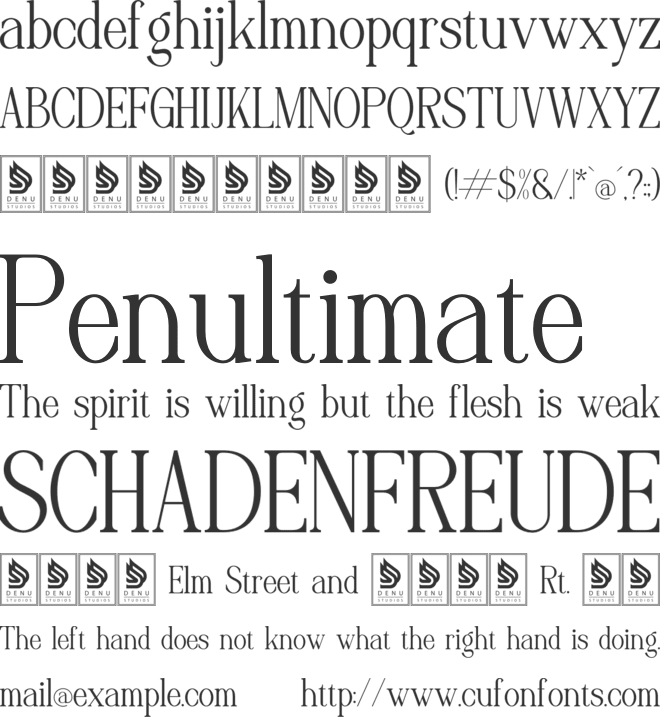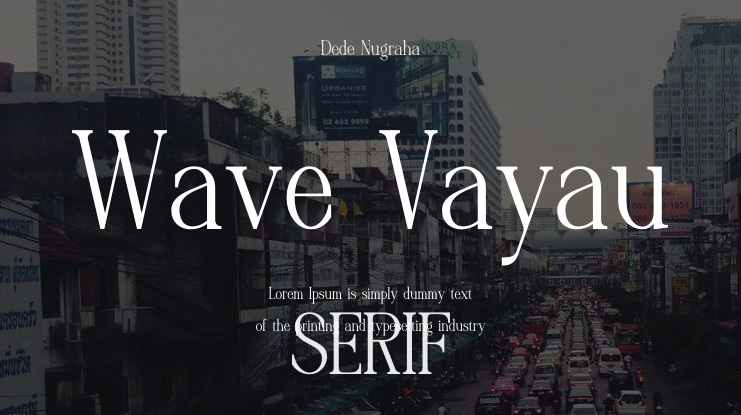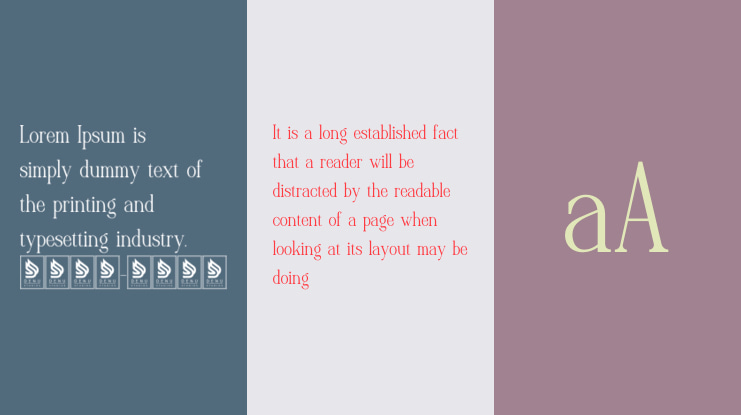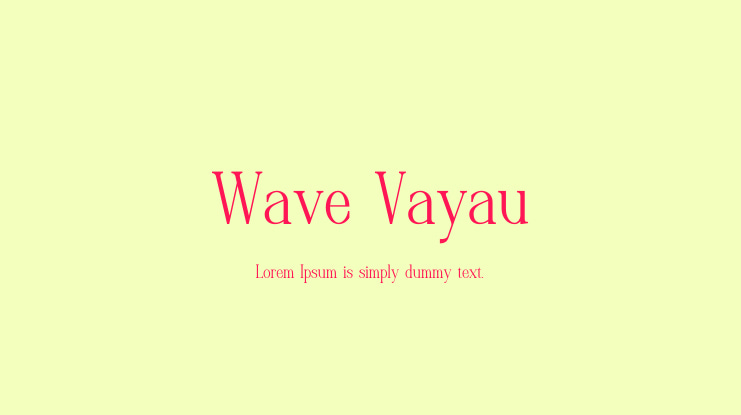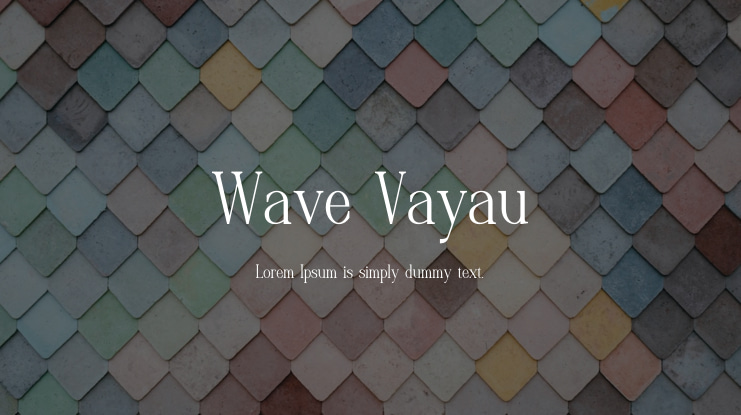
Wave Vayau Font
Wave Vayau | Display Serif Font is perfect for a variety of projects including logos, branding, homeware designs, product packaging, mugs, quotes, posters, shopping bags, t-shirts, book covers, name cards, invitation cards, greeting cards, labels, photography watermarks, special events, and other projects requiring a Display Serif Font touch.